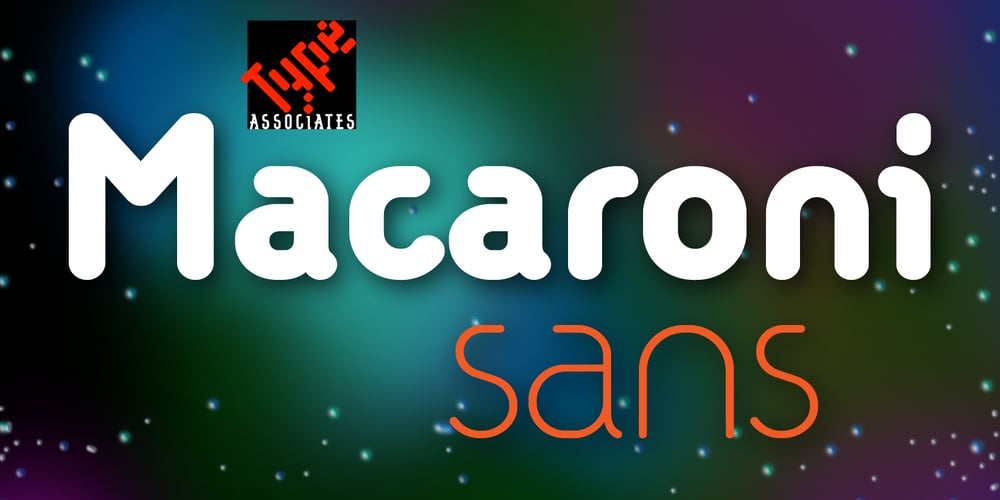
Macaroni Sans Font Family was designed by Russell Bean and published by Type Associates. Macaroni Sans contains 17 styles and family package options. Macaroni Sans evolved from our search for an extended font family consisting of a range of weights in both uprights and obliques, with a contemporary appeal. The desired character was to be sympathetic with a range of high-tech consumer products so a friendly, soft approach was called for. The resulting mix of geometric shape, rounded terminals, subtle italic angle of just six degrees and a few quirky stroke endings met with an enthusiastic response. As its subject product line exhibits brilliant color and imagery, a style was called for that conveyed contemporary appeal and readability but would not compete with the savvy products. We arrived at a clean, modern, sociable look that would suit a broad subject field in either text, semi display or signage. Its simple lines and monoline strokes fit well with logo usage or screaming posters, enhancing letterheads or websites, for foodstuffs to autos, insurance to swimming pools, lawfirms to babyfood. Macaroni Sans is the perfect typeface for branding, logotypes, may even flatter challenging viewing conditions. Rounded types have been around (pardon the pun) for centuries; numerous examples can be seen on old wood type posters, which in a small way prompted the name: in fashion Macaroni was a term used in mid-eighteenth century Europe to describe a dandy, a chap who displayed flamboyance in dress and hairstyle and spoke outlandishly or in an effeminate manner. Hence the term macaronic verse.